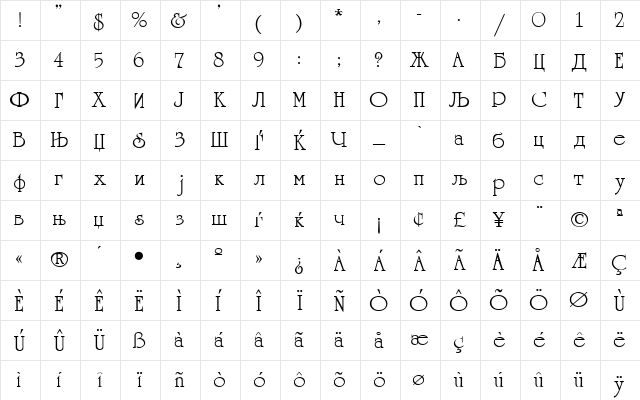
C_Kirilica_Unicorn Regular
Design Context for C_Kirilica_Unicorn Typeface
C_Kirilica_Unicorn is a composed and adaptable typeface that performs quietly and consistently across a wide range of design contexts.